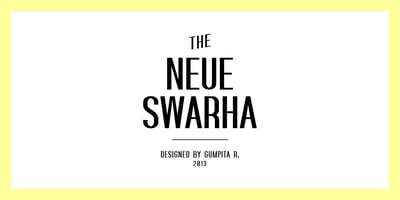
Swarha Font Family was designed by Gumpita Rahayu and published by Gumpita Rahayu. Swarha contains 2 styles and family package options. Built in 1930 – 1935 by Dutch architect Wolff Schoemaker, the Swarha Islamic Building was originally used as a lodging for the honoured guest country and the journalists for Asia-Africa Conference in 1955. This building has an important role as one of Bandung historical art deco heritage, with the art deco typefaces styles on it’s singage in this building, giving it a more classic west and east taste. Wolff Schoemaker was trying to combine the elements between eastern and western culture in design. One of his works was the Swarha Islamic Building in a circular design with rounded and high dynamic angle. Unfortunately the Swarha Islamic Building has been abandoned and and less attentioned by the local people itself to preserve this historic building. So I’m trying to raise the value of the historical heritage by creating this typefaces. This typefaces was inspired by the Swarha Building characteristic itself with its solid construction and dynamic, by adding classic taste on each characters. Available in two styles, Neue and Rounded represents the classic architectural Swarha Islamic Building styles with tropical Bandung Art Deco taste. This typeface is highly usable as a display type for your designs, and will fit with movie titles, magazines, your classic shops logo and signage designs, or you can use this typefaces as your web pages headlines. The characters of this typefaces are only in uppercase style, but it built with small caps on the lowercase featured, and additional Opentype Features were loaded, some stylistic alternates, accessible catchwords in the discretionary ligatures, and standard ligatures.